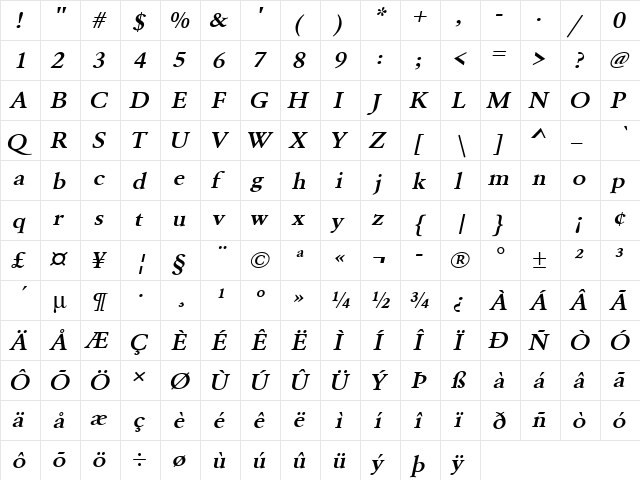
URWGaramondTDemExtWid Oblique
Design Context for URWGaramondTDemExtWid Typeface
URWGaramondTDemExtWid takes a measured approach to typography — its balanced proportions and neutral character make it a reliable workhorse for both digital and print work. The slanted form adds forward momentum and visual energy.